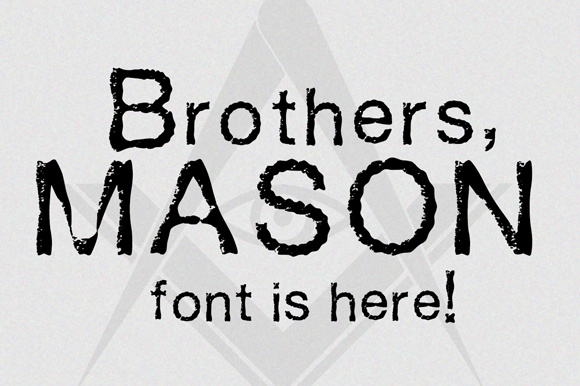
Dive into the world of Mason Font, a chipped, hand-carved masterpiece that adds a touch of rustic charm to your digital creations. Its thick, striking letters demand attention, leaving an unforgettable impression on every design.
Born from the creative minds at GraphicsBam Fonts, Mason Font embodies the essence of uniqueness. Each letter, carefully crafted to resemble a hand-carved artifact, carries a story of its own. Its chiseled edges and weathered appearance evoke a sense of nostalgia, bringing a timeless elegance to your designs.
With Mason Font, you'll find endless possibilities to make your designs shine. Its versatility extends across a wide spectrum of projects, from branding and logos to posters and invitations. Its bold presence commands attention in print and on screens, making it the perfect choice for creating captivating headlines, eye-catching social media graphics, or stunning website designs.
But what truly sets Mason Font apart is its exceptional performance on retina displays. Its crisp, clean lines and meticulously crafted details come alive on high-resolution screens, ensuring your designs look flawless and polished. Whether you're designing for web, print, or mobile, Mason Font guarantees a captivating visual experience.